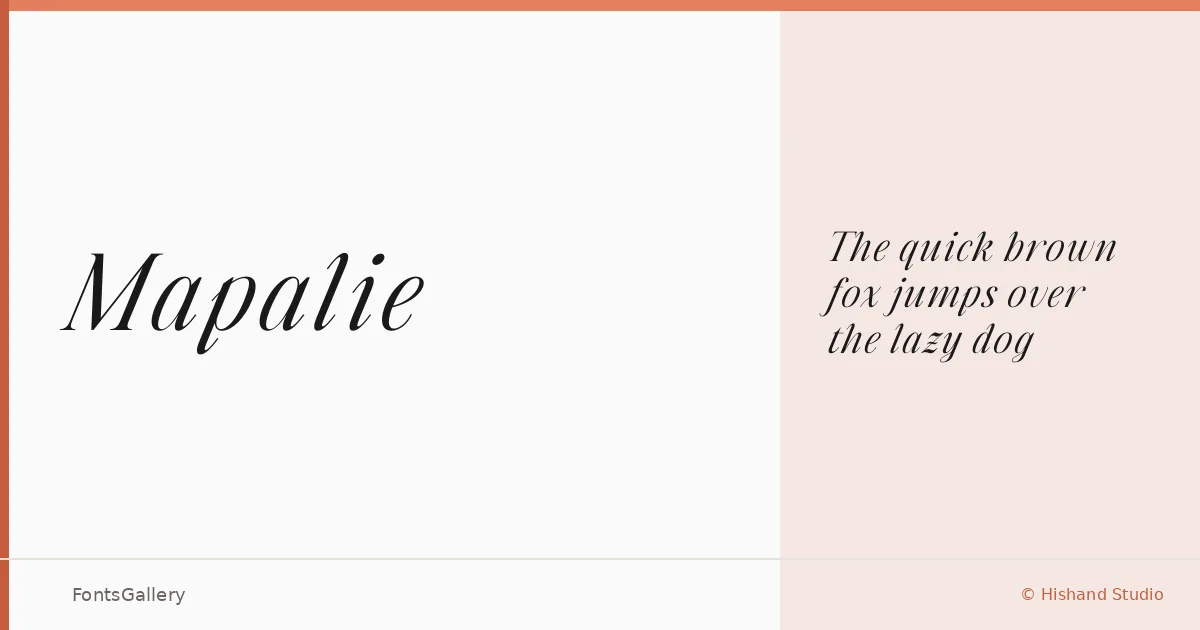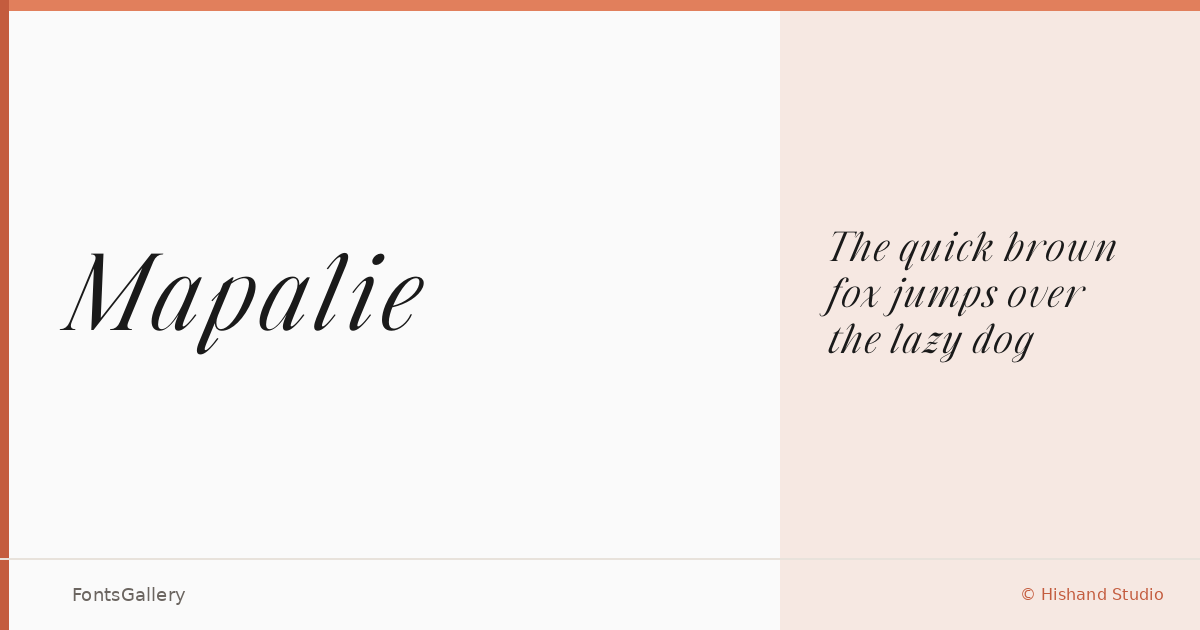
About Mapalie Font
There is a particular quality to a well-drawn italic script — the way the letters lean into each other, carrying a sense of forward motion without rushing. Mapalie, released by Hishand Studio under designer Putu Dody Permana, is that kind of face. It comes as a single Regular Italic cut in OTF format, built with careful attention to the classical rhythms that give handwritten letterforms their warmth.
The mood here sits firmly in classic elegance — the kind of romantic, luxury-leaning aesthetic you expect on a wax-sealed envelope or a boutique's wordmark. As a script category face, it carries flowing connections and a refined slant that reads as both intimate and composed. The single italic style means you work with the character of the face directly, without weight variants pulling you in different directions.
It earns its keep on wedding invitations, greeting cards, branding suites, and logo lockups where a hand-lettered sensibility is essential. Latin character coverage keeps it suited to those markets. For pairing, the contrast between this script and a clean neutral like Helvetica works well, as does setting it alongside serif companions such as Alexandria, Canela, or Bizantheum — or leaning into a more decorative direction with Aresink.